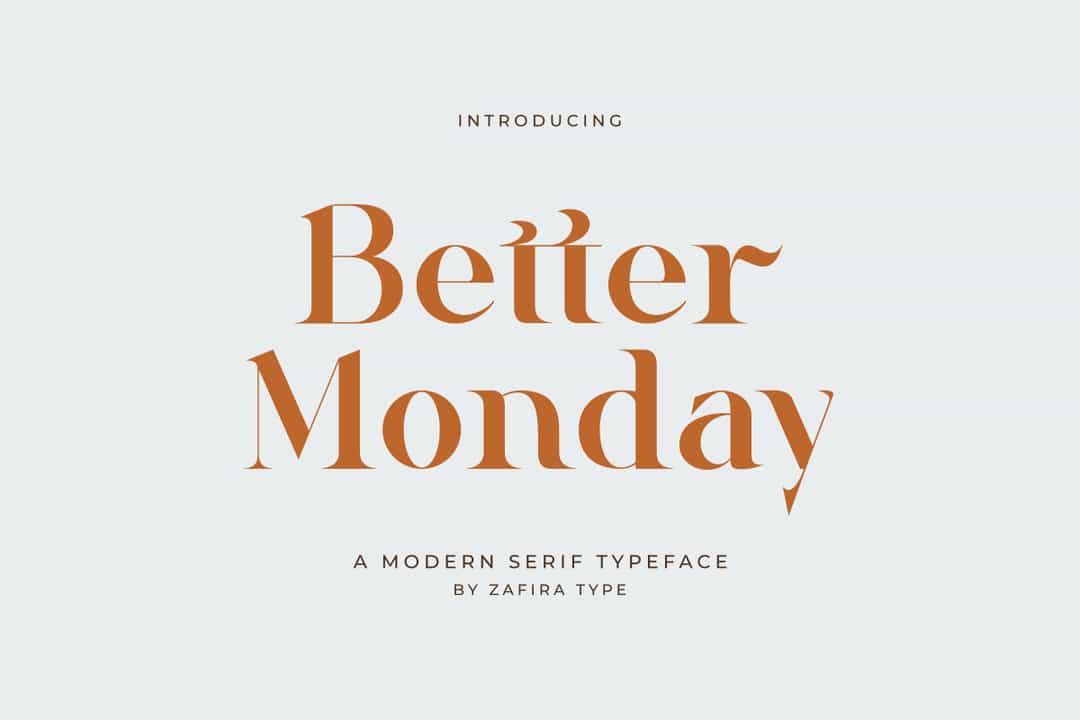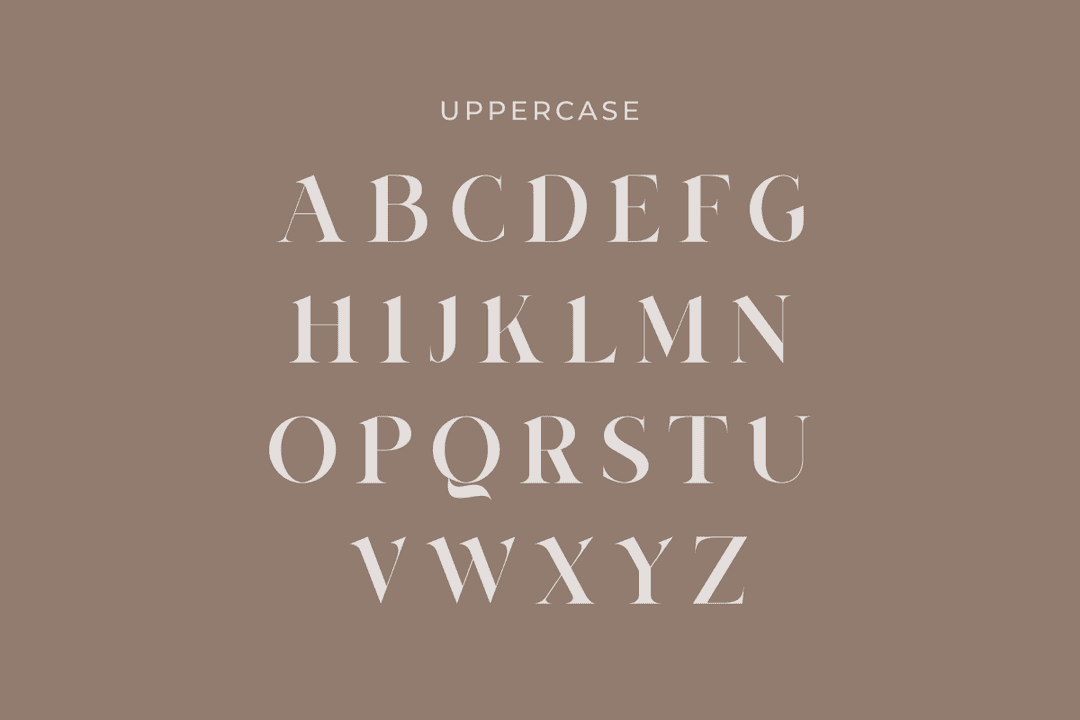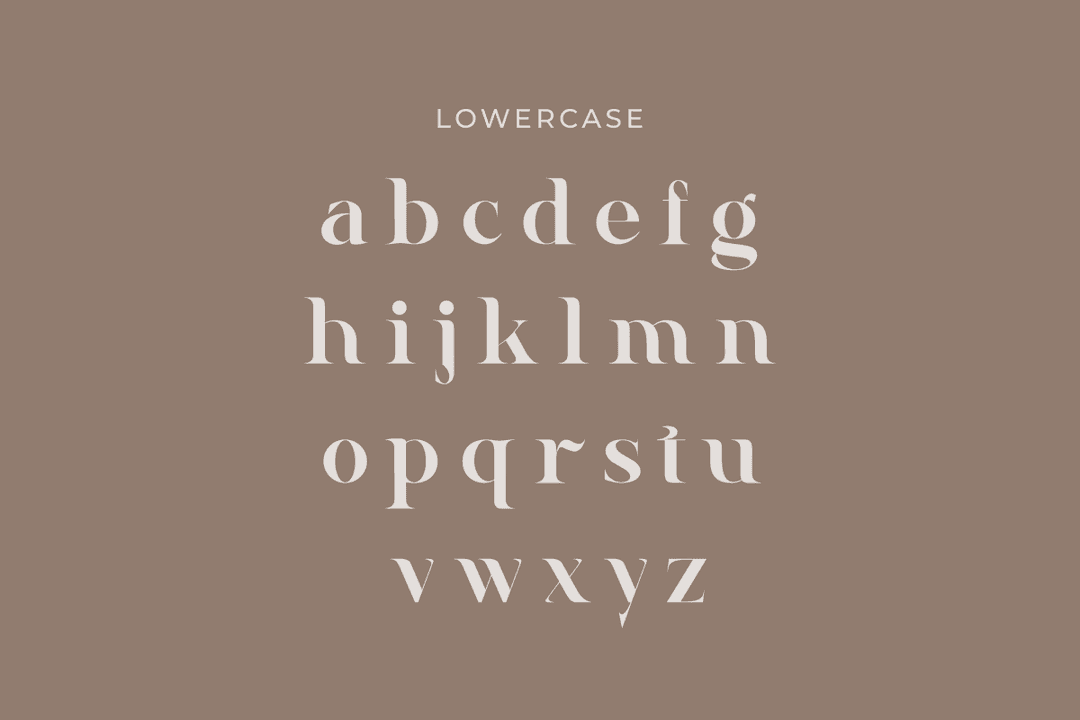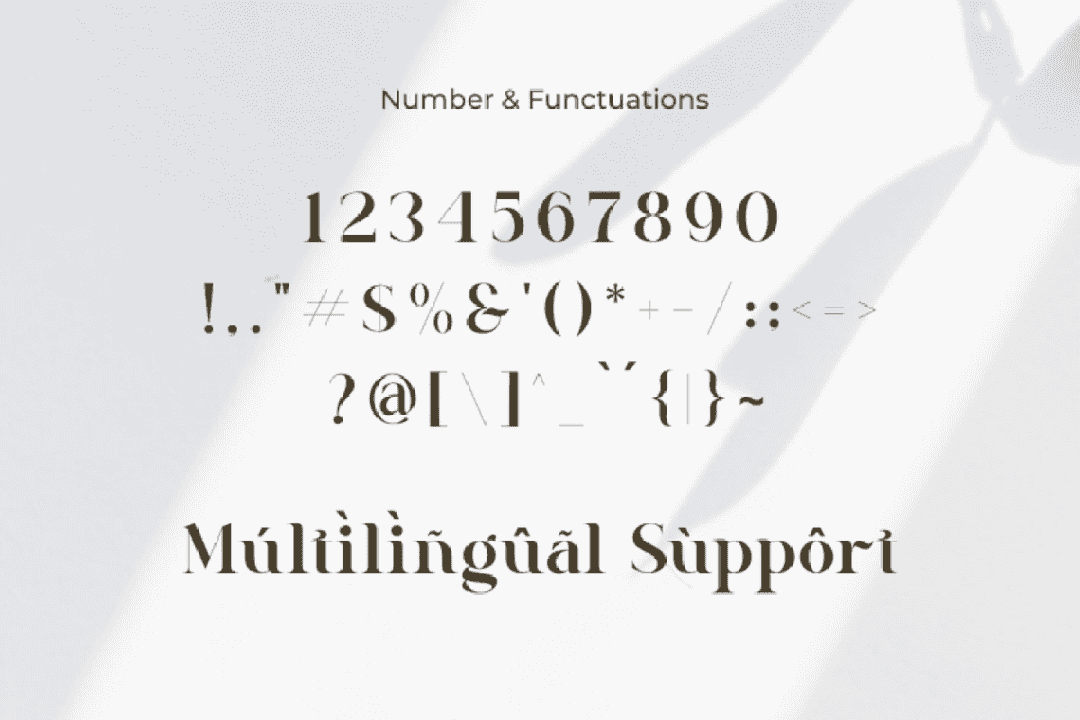
Better Monday Font
Better Monday is an elegant serif display font known for its stylish and contemporary appearance. Renowned for its distinct contrast between thin and thick serifs as well as sharp angles in their serifs, Better Monday brings elegance to headers, titles and other design elements that need a stylish and beautiful appearance.